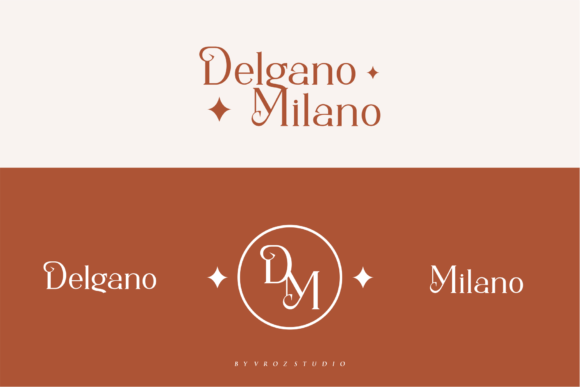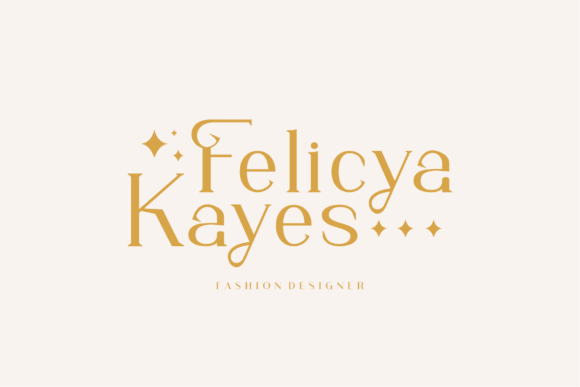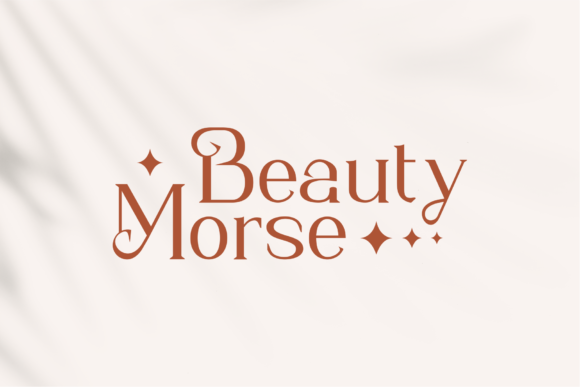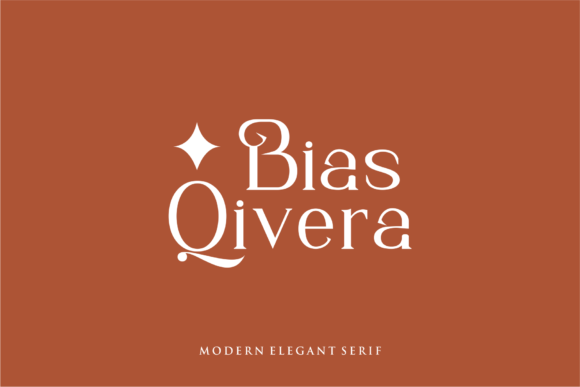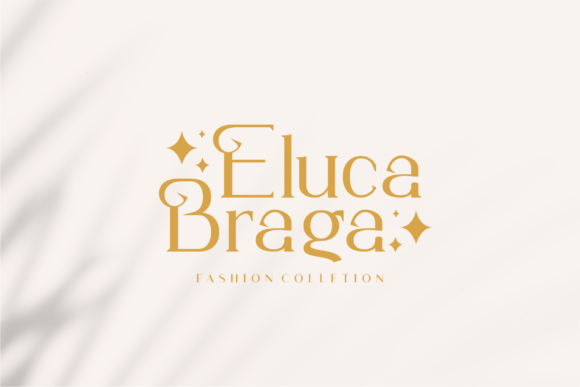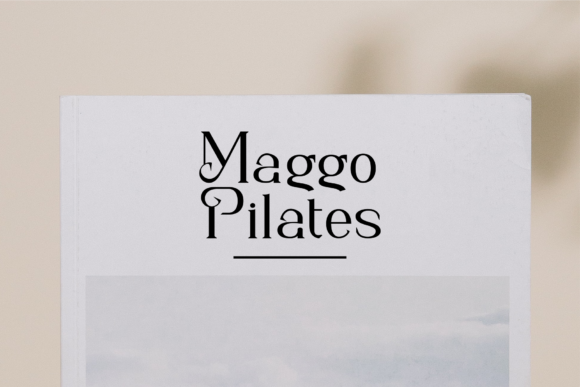
Discover the Versatility of Agata Font: A Clean, Simple, and Assertive Serif Font
Are you a designer or crafter looking for a font that exudes simplicity, cleanliness, and assertiveness? Look no further than the Agata Font. This stunning serif font is perfect for a wide range of design projects, from t-shirts and sportswear to logos, advertisements, clothing, and more. In this article, we’ll dive into the features and benefits of Agata Font, and explore how it can elevate your designs to the next level.
What is Agata Font?
Agata Font is a beautifully crafted serif font that boasts a clean and simple design. Its assertive yet elegant appearance makes it an excellent choice for designers who want to create a lasting impression. The font’s classic serif lines and subtle curves create a sense of sophistication and refinement, making it perfect for a variety of design applications.
Key Features of Agata Font
- Clean and Simple Design: Agata Font features a clean and simple design that ensures excellent readability, even at smaller font sizes.
- Assertive yet Elegant: The font’s assertive appearance is balanced by its elegant lines, making it perfect for designs that require a touch of sophistication.
- Serif Font: Agata Font is a serif font, which adds a touch of classic elegance to any design.
- Versatile: This font is suitable for a wide range of design projects, from t-shirts and sportswear to logos, advertisements, clothing, and more.
Benefits of Using Agata Font
So, why should you choose Agata Font for your design projects? Here are just a few benefits of using this amazing font:
- Improved Readability: Agata Font’s clean and simple design ensures that your text is easy to read, even at smaller font sizes.
- Enhanced Aesthetic Appeal: The font’s elegant lines and assertive appearance add a touch of sophistication to any design.
- Increased Versatility: Agata Font can be used for a wide range of design projects, making it an excellent addition to any designer’s font library.
- Easier Design Process: With Agata Font, you can create stunning designs quickly and easily, thanks to its clean and simple design.
Design Ideas Using Agata Font
Agata Font is an incredibly versatile font that can be used for a wide range of design projects. Here are a few ideas to get you started:
- T-Shirts and Sportswear: Create eye-catching designs for t-shirts and sportswear using Agata Font’s bold and assertive appearance.
- Logos and Branding: Use Agata Font to create professional-looking logos and branding materials that exude elegance and sophistication.
- Advertisements: Agata Font’s clean and simple design makes it perfect for use in advertisements, where readability is key.
- Clothing and Accessories: Create stunning designs for clothing and accessories, such as hats, bags, and more.